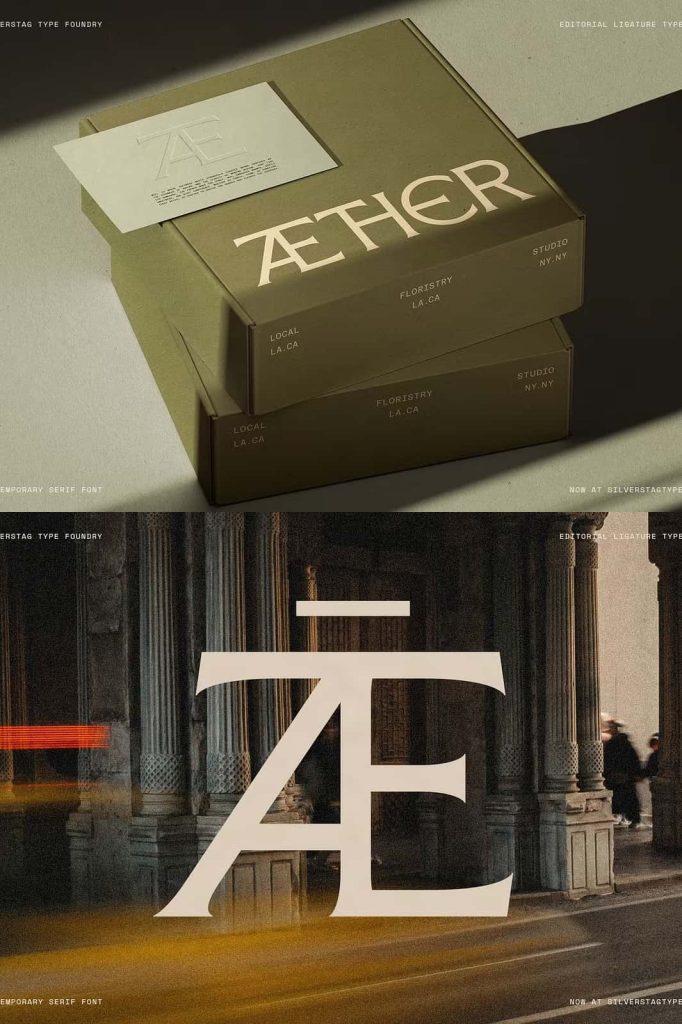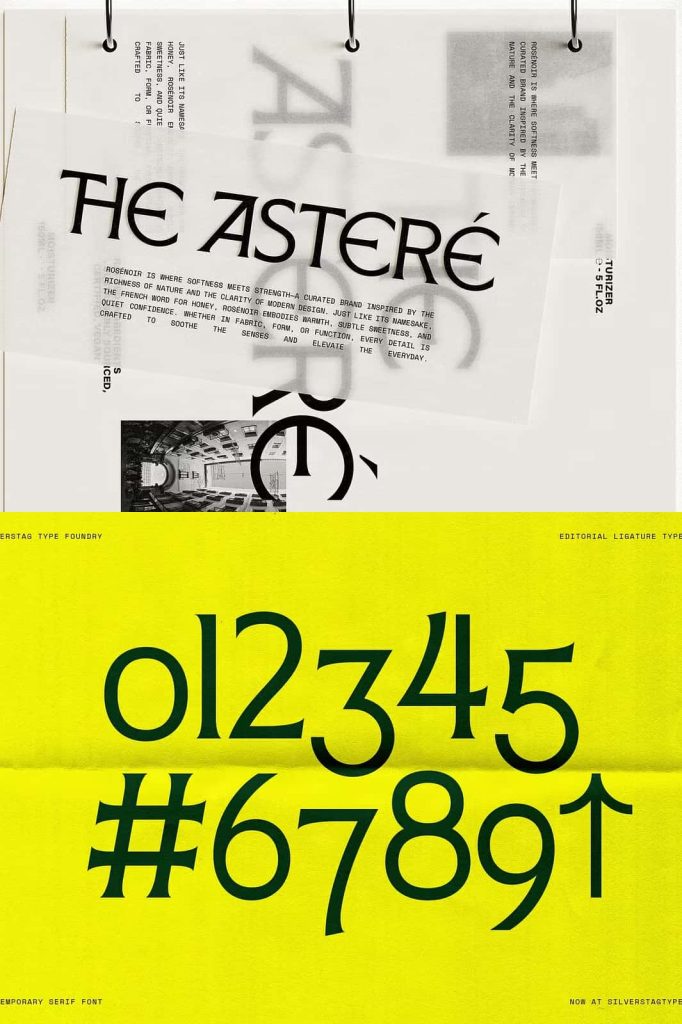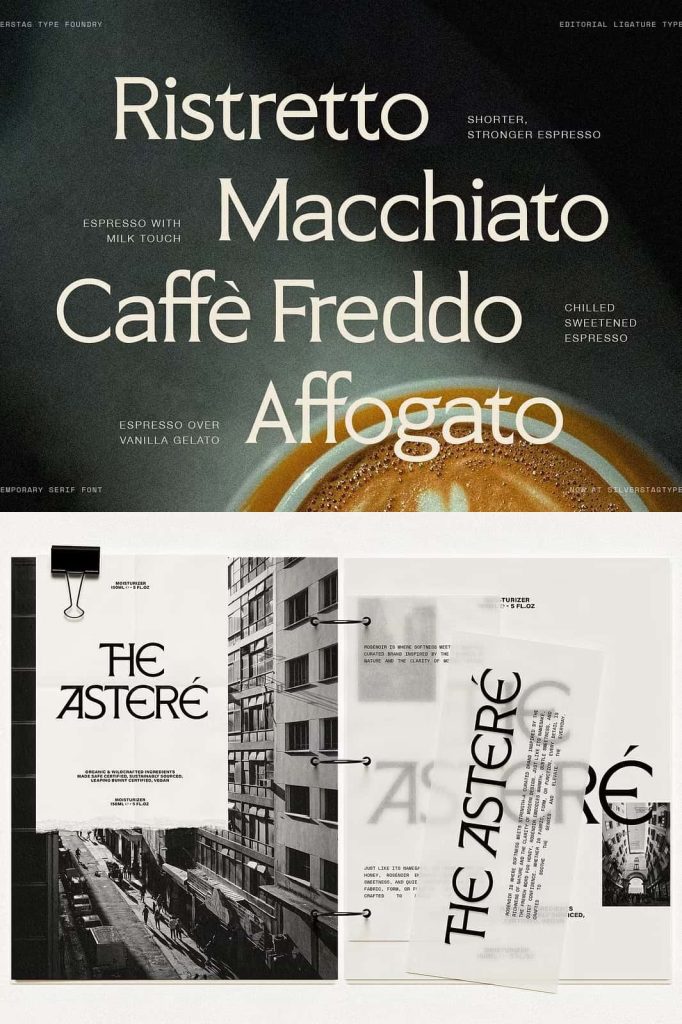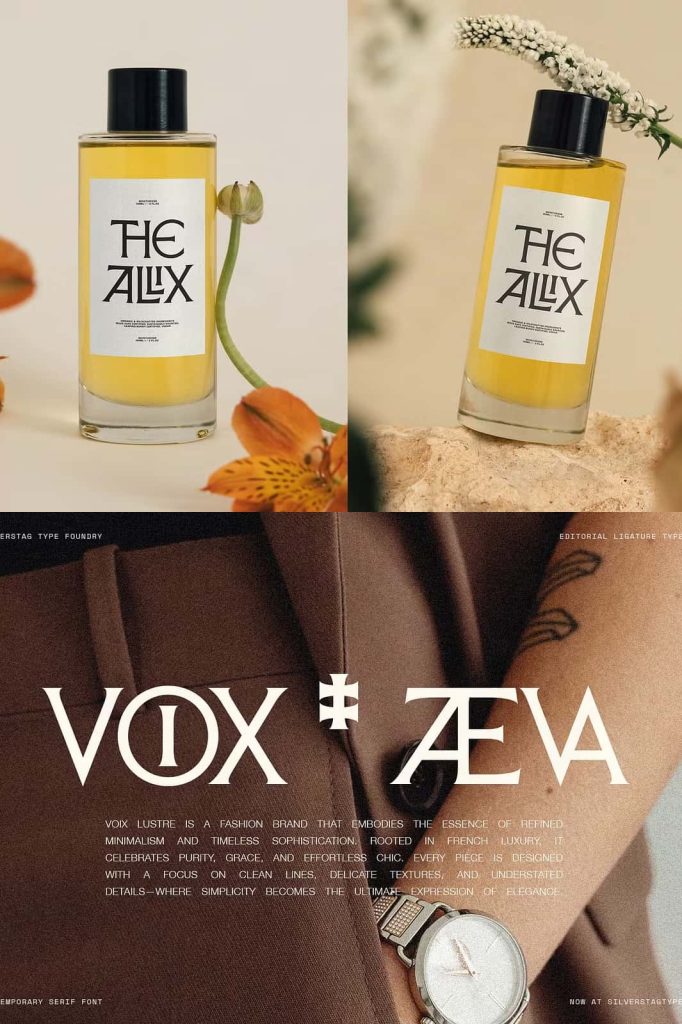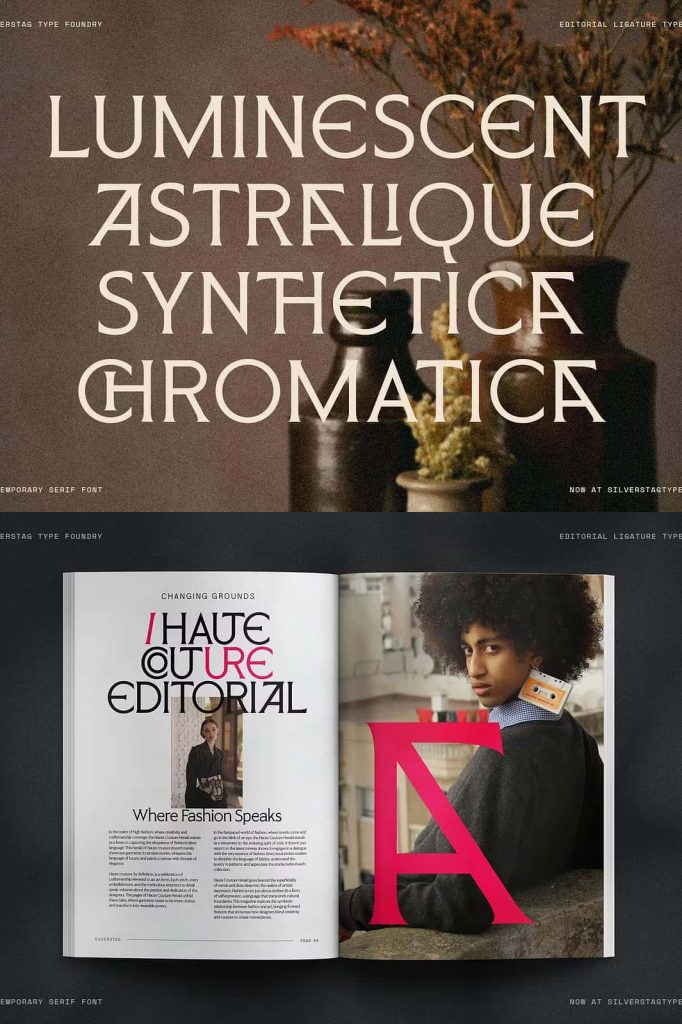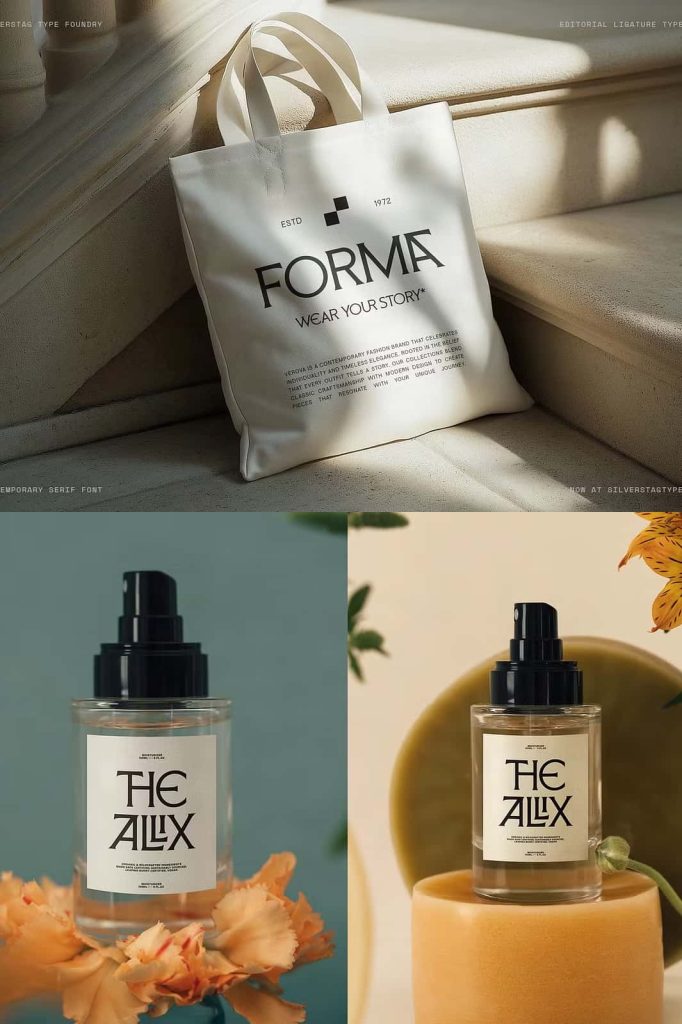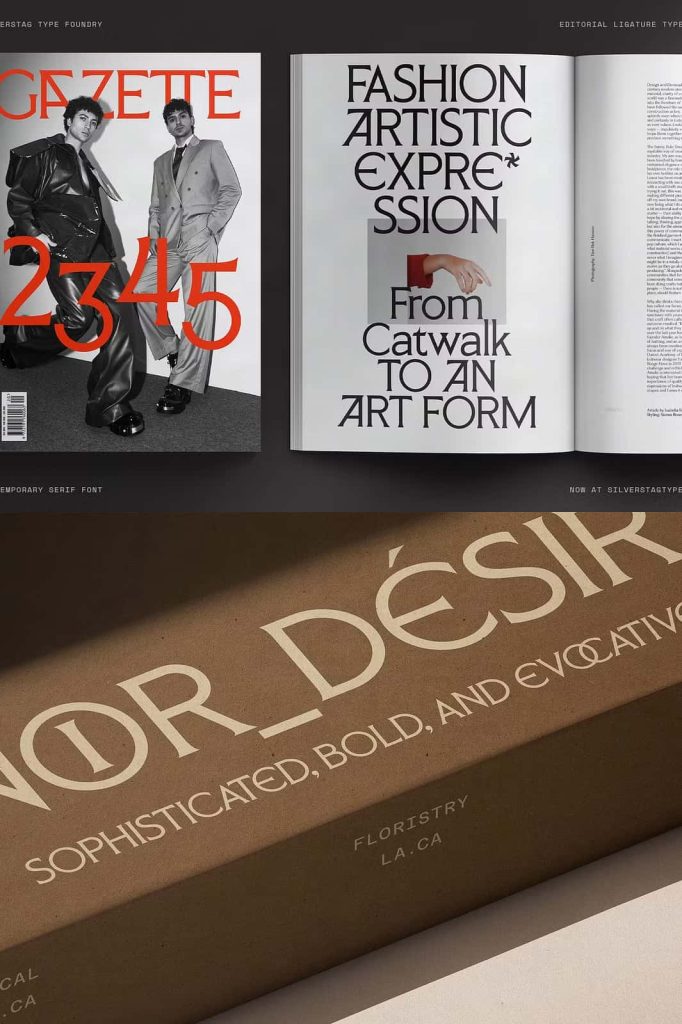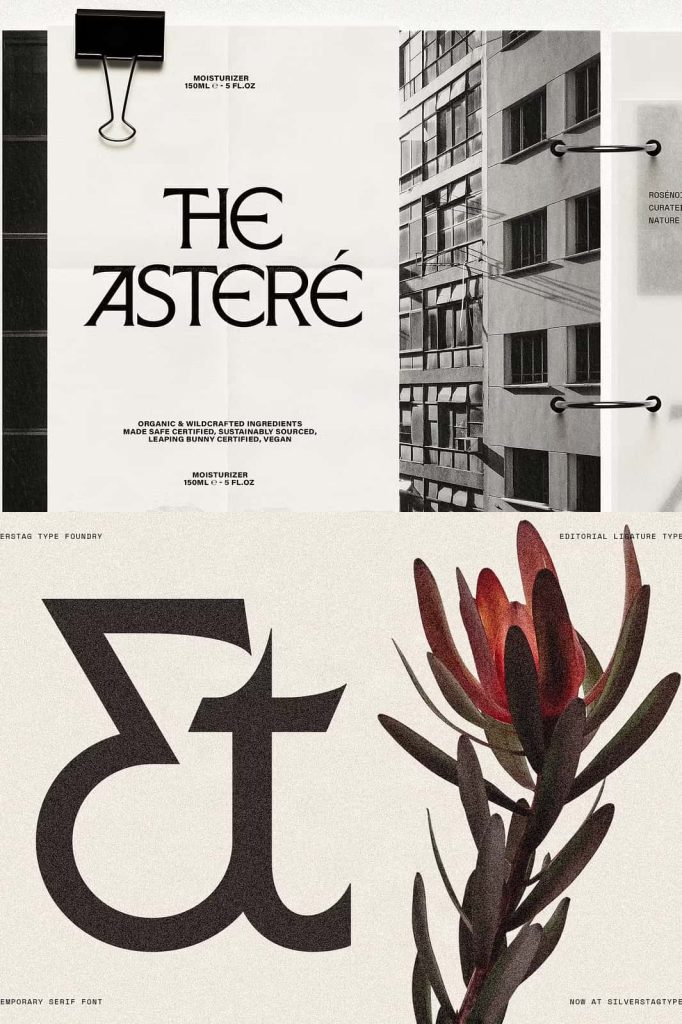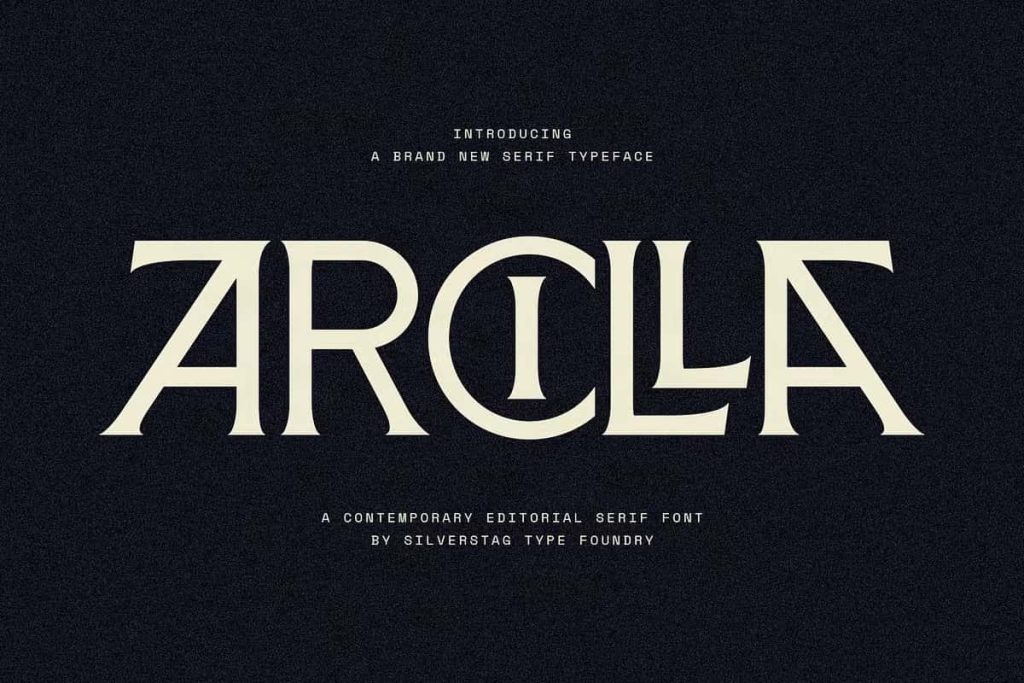
ARCILLA – Editorial Serif Typeface
Arcilla Modern Serif Typeface
Arcilla is a sophisticated modern serif typeface crafted for designers who want to create bold editorial layouts, premium branding, and memorable visual identities. Combining contemporary elegance with timeless serif styling, Arcilla offers a perfect balance of clean structure, artistic details, and exceptional versatility. Whether you’re designing luxury branding, fashion campaigns, magazine layouts, or high-end packaging, this typeface provides the professional appearance needed to elevate every creative project.
Designed with precision and attention to detail, Arcilla features beautifully sculpted letterforms that stand out while maintaining excellent readability. Every character reflects a thoughtful combination of sharp angles, graceful curves, and refined terminals, creating a distinctive personality that immediately captures attention. The result is a typeface that feels stylish, confident, and highly adaptable across both digital and print media.
A Modern Serif with Editorial Elegance
Arcilla was created to deliver the sophisticated look commonly found in luxury editorials and premium branding. Instead of relying on traditional serif conventions alone, this typeface introduces modern proportions and carefully refined details that make every headline, logo, and title feel contemporary.
The elegant construction of each letter allows Arcilla to perform beautifully in large display sizes while remaining highly legible in shorter paragraphs and supporting text. This versatility makes it an ideal solution for designers who want one font that can work across multiple applications without sacrificing visual consistency.
Its clean yet expressive appearance helps brands communicate professionalism, creativity, and confidence in every design.
Distinctive Letterforms with Strong Character
One of Arcilla’s defining strengths lies in its carefully sculpted letterforms. Sharp angles blend seamlessly with soft curves to create a striking visual rhythm that feels both balanced and unique. Every terminal has been thoughtfully designed to contribute to the font’s recognizable silhouette, giving headlines and logos a polished, premium appearance.
This distinctive construction allows Arcilla to stand out in competitive branding environments while remaining elegant enough for luxury and editorial design. Whether used for bold titles or refined wordmarks, the font consistently delivers a sophisticated impression.
Creative Ligatures and Beautiful Alternates
Arcilla includes professionally designed ligatures and alternate characters that allow designers to create custom typography effortlessly. These OpenType features introduce additional personality while maintaining consistency throughout your design.
Rather than manually adjusting letter combinations or creating custom lettering from scratch, you can simply activate the ligatures and alternates to achieve elegant typography with minimal effort. This feature makes Arcilla especially valuable for logo design, branding projects, product packaging, and editorial headlines.
The additional glyph options also encourage experimentation, giving designers greater creative flexibility when building unique visual identities.
Perfect for Luxury Branding
Arcilla has been developed with modern branding in mind. Its premium aesthetic makes it suitable for businesses and creators who want to establish a refined and trustworthy visual presence.
This typeface works exceptionally well for:
• Luxury brand identities
• Fashion logos
• Beauty and cosmetic packaging
• Jewelry branding
• Perfume labels
• Editorial magazine covers
• Lifestyle product branding
• Restaurant identities
• Cafe branding
• Creative agency portfolios
• Business presentations
• Premium websites
• Social media graphics
• Book covers
• Wedding stationery
• Invitations
• Product packaging
• Marketing campaigns
• Digital advertisements
• Creative portfolios
Designed for Contemporary Creative Projects
Arcilla complements today’s modern design trends while maintaining timeless appeal. Its elegant proportions allow it to blend naturally with minimalist layouts, luxury photography, editorial compositions, and sophisticated branding systems.
The font performs beautifully across various industries, including fashion, beauty, architecture, interior design, hospitality, publishing, and premium consumer products. Whether you’re creating printed materials or digital experiences, Arcilla delivers a polished and professional appearance.
Excellent Readability Across Print and Digital Media
While Arcilla offers a highly expressive display style, it also prioritizes readability. The carefully balanced spacing and refined character proportions ensure that every word remains clear and visually appealing across different screen sizes and print formats.
This makes the typeface suitable for website headings, magazine titles, promotional materials, product catalogs, advertising campaigns, brochures, lookbooks, and social media content.
Its versatility enables designers to maintain visual consistency across multiple platforms while reinforcing a strong brand identity.
Why Choose Arcilla?
• Elegant modern serif design
• Professional editorial appearance
• Beautiful ligatures and alternate characters
• Distinctive sculpted letterforms
• Perfect for luxury branding
• Ideal for fashion and lifestyle projects
• Excellent readability
• Works beautifully in both print and digital media
• Versatile across multiple creative industries
• Creates memorable logos and visual identities
Ideal Applications
Arcilla is an excellent choice for designers, branding agencies, creative studios, entrepreneurs, publishers, and marketers looking for a serif typeface with premium visual impact. Its modern elegance makes it suitable for projects that demand sophistication without becoming overly decorative.
Whether you’re developing a fashion label, launching a cosmetic brand, designing an editorial publication, or creating stylish packaging, Arcilla helps communicate quality, confidence, and refined craftsmanship.
Arcilla Modern Serif Typeface combines contemporary sophistication with timeless serif elegance to create a versatile font for today’s creative professionals. Featuring beautifully sculpted letterforms, expressive ligatures, stylish alternates, and exceptional readability, Arcilla offers everything needed to build premium branding and editorial designs that leave a lasting impression.
If you’re searching for a serif font that balances elegance, creativity, and functionality, Arcilla is a powerful addition to your typography collection. From logos and luxury branding to magazines, packaging, and digital media, this typeface helps transform ordinary designs into memorable visual experiences with confidence and style.